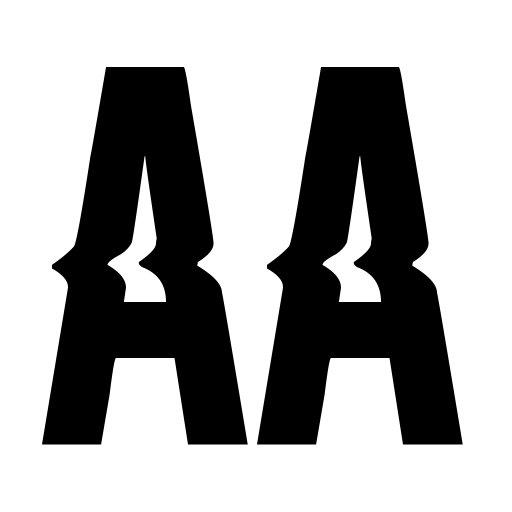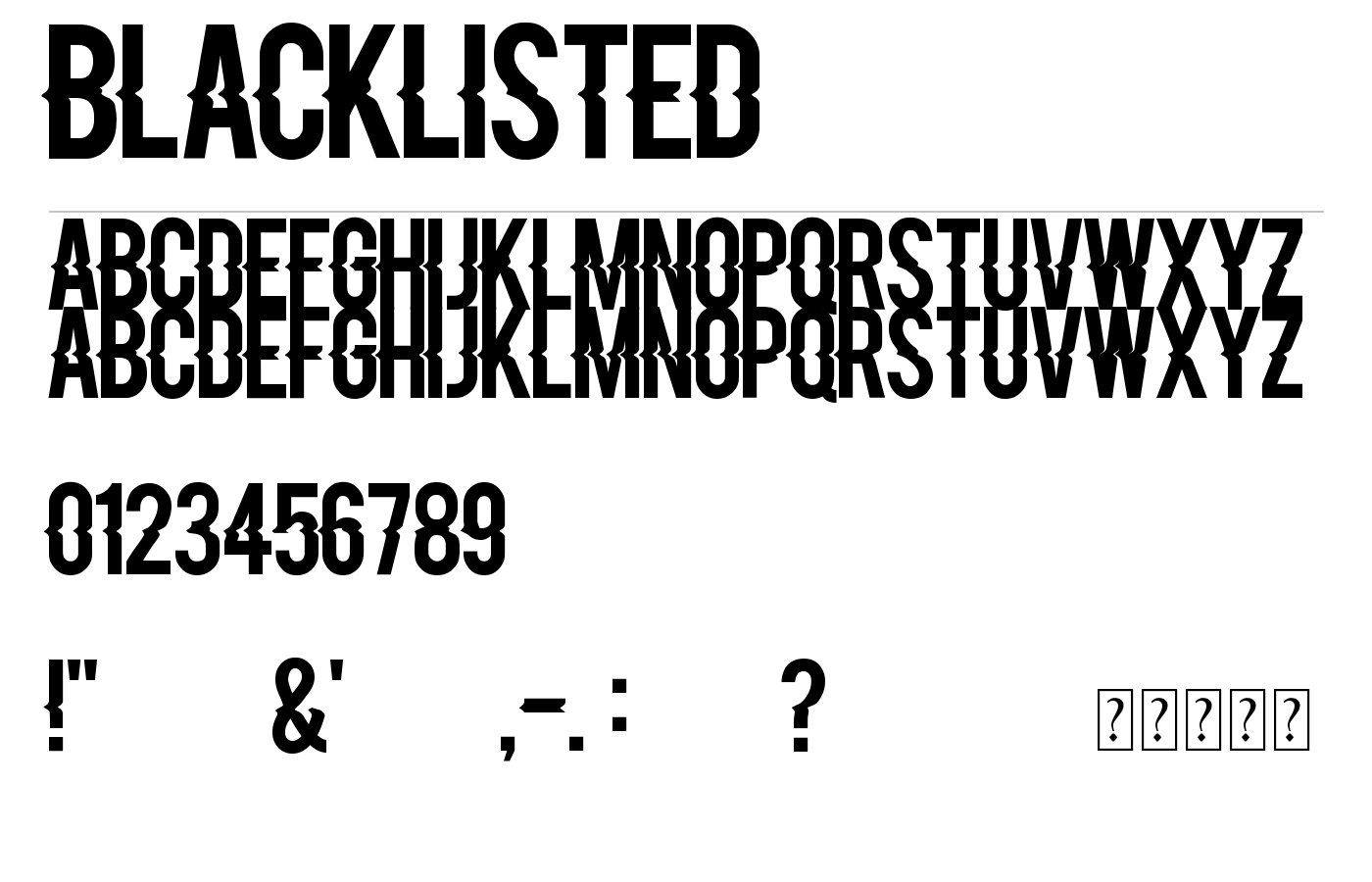
Blacklisted Font is a bold, condensed sans serif typeface characterized by its striking high contrast and sharp, geometric cuts through the middle of each letter, giving it a unique fractured appearance. Its strong, edgy personality makes it ideal for bold headlines, posters, or branding that seeks a modern, rebellious, and visually impactful style. The font’s all-caps design and solid, tight spacing ensure maximum presence and readability in attention-grabbing display uses.
Blacklisted Font